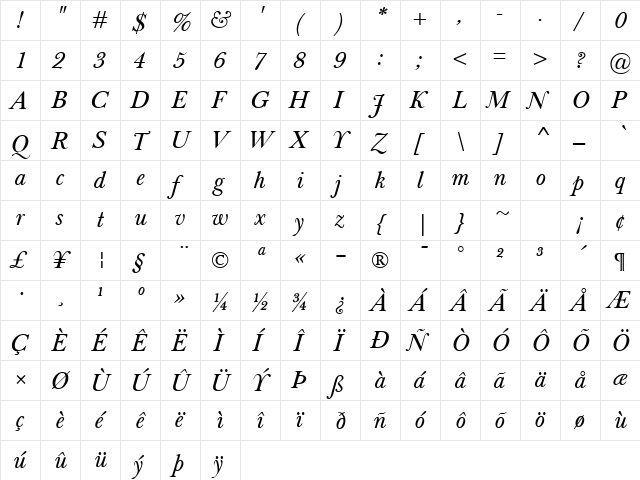
Baskerville Classico Italic
Design Context for Baskerville Classico Typeface
Baskerville Classico wears its vintage influences proudly, with letterforms that recall mid-century signage, classic packaging, and nostalgia-driven design. The dynamic lean of this cut emphasises speed and emphasis in any layout.
Ideal for diner signage, record shop branding, 70s/80s-themed projects, and heritage product labels.
Font Pairing: Combine Baskerville Classico with a simple slab or neutral sans — period-accurate companions reinforce the vintage feel without competing for attention.
Pro Tip: Lean into Baskerville Classico's period character by pairing it with aged paper textures, muted colour palettes, and vintage illustration styles.